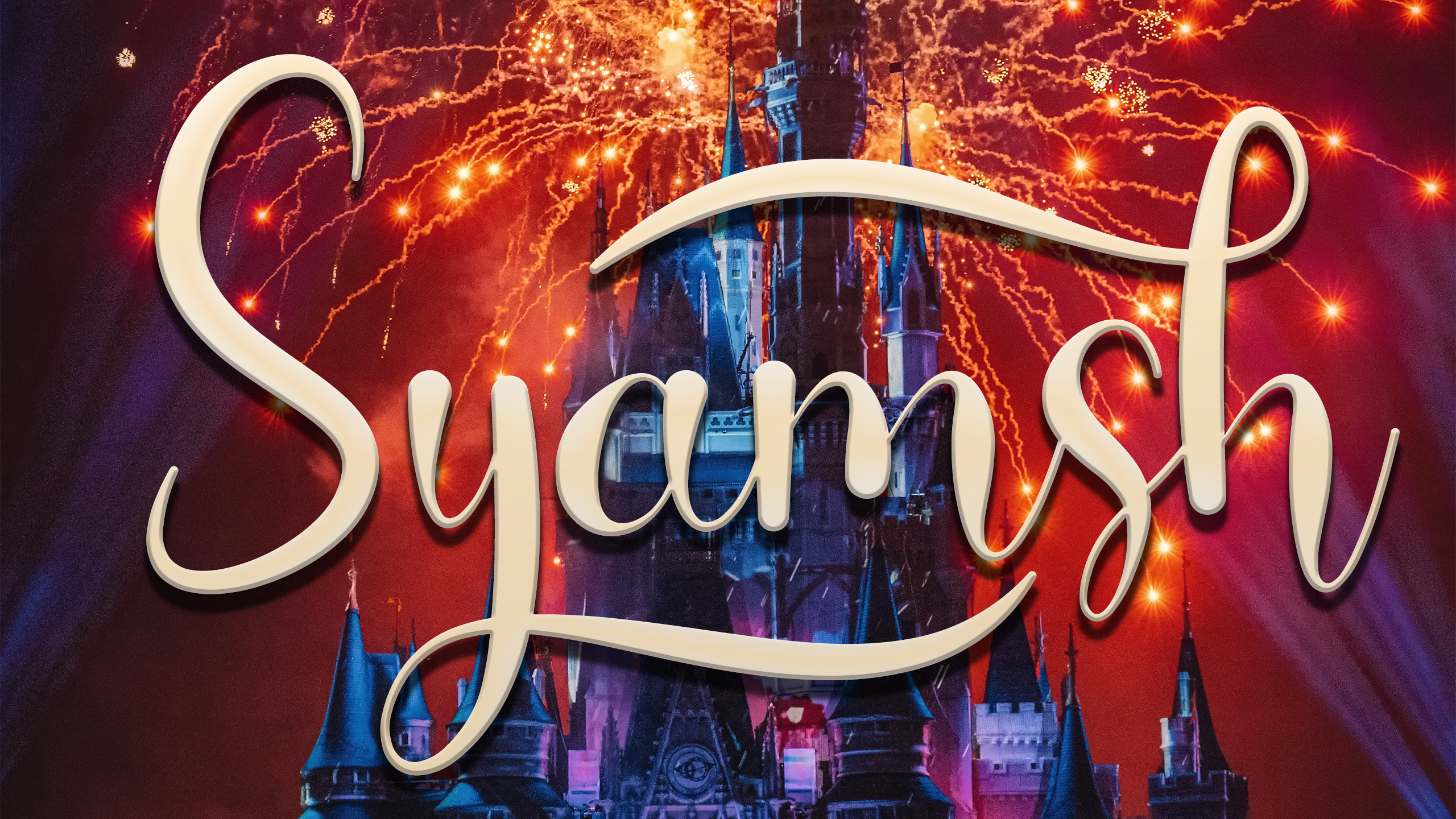
Super Flower – Playful Style Font
Super Flower – Playful Style Font is a sweet and friendly handwritten display font. Cute and fun, this font is ideal for writing wedding invitations, cards, or any other design that might need a playful touch!